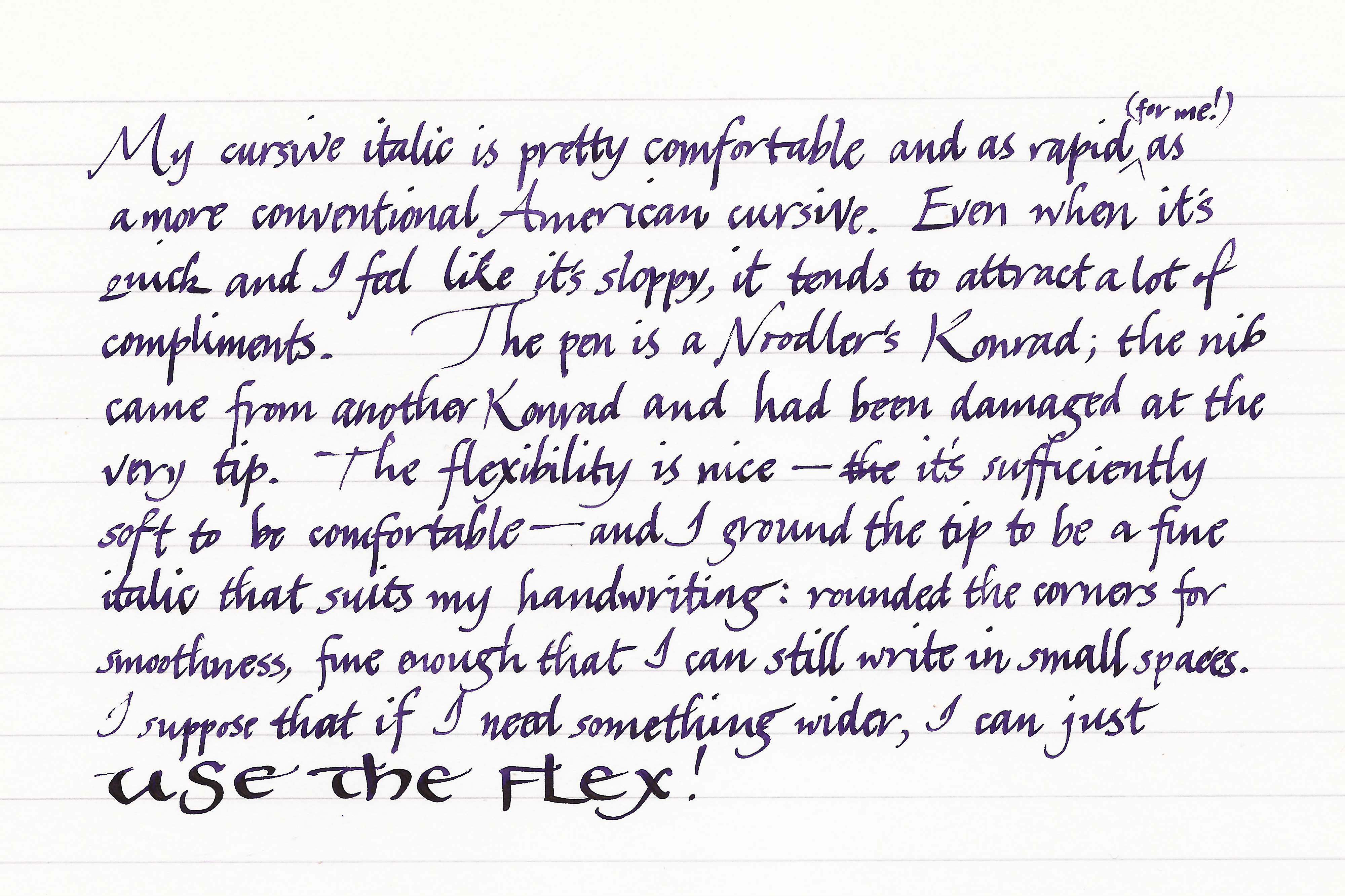
Italic Cursive Font Images
Learn Calligraphy Italic Alphabet
In order to achieve the look in the op's image, you need to apply a different font style (italic/bold) to certain elements. Looking for italic cursive fonts? Italic type letters, numbers and punctuation marks.
Italic, cursive, and slanted fonts. Mega set calligraphy hand written alphabet vector. For many reasons, italic is a better cursive: